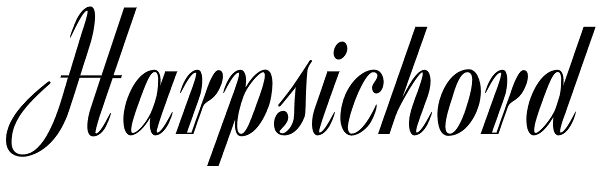
Harpsichord
Harpsichord (as I have named it) is from the late 1940s and was designed at Lucian Bernhard Studios in New York for Bernhard's Magnetype Collection. It was originally published as 'Community Low' along with 'Community Condensed'. Many of his...
Harpsichord
Harpsichord Tall Condensed